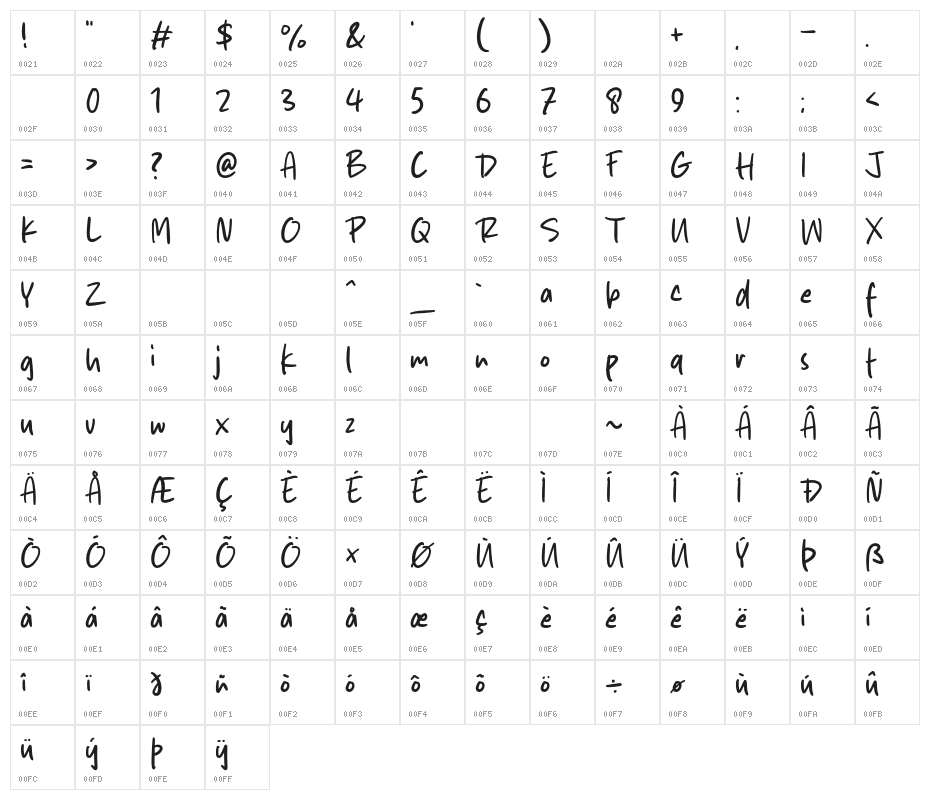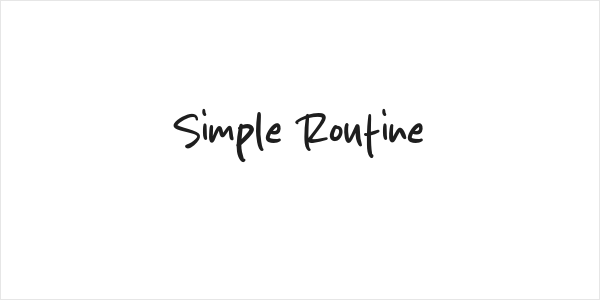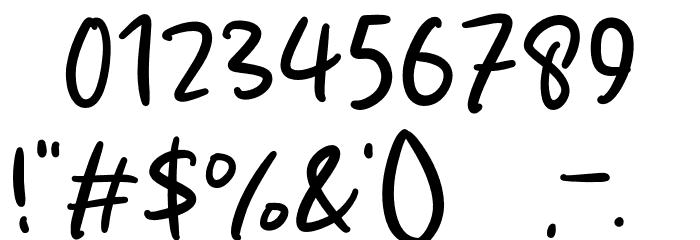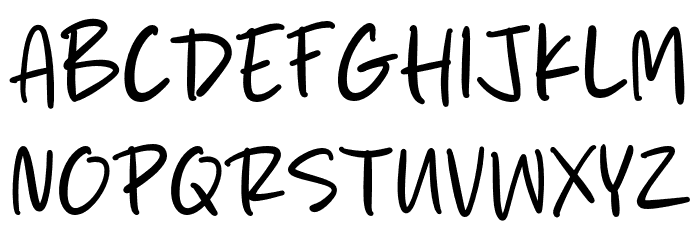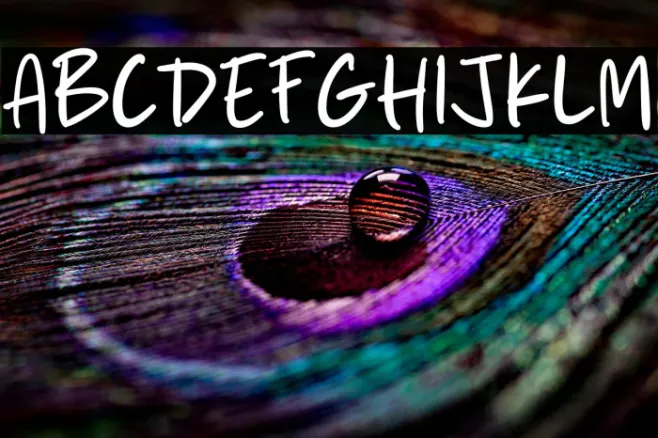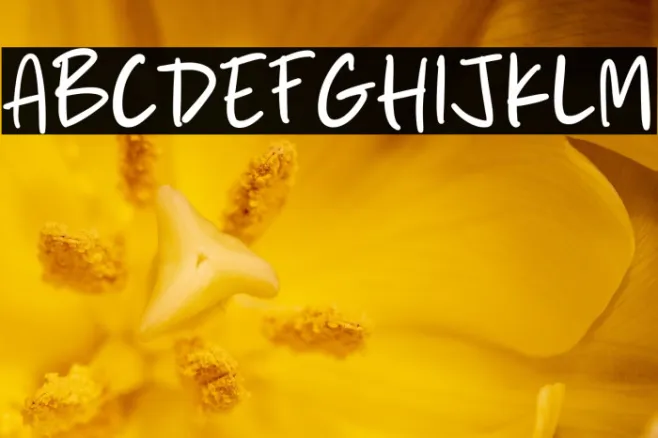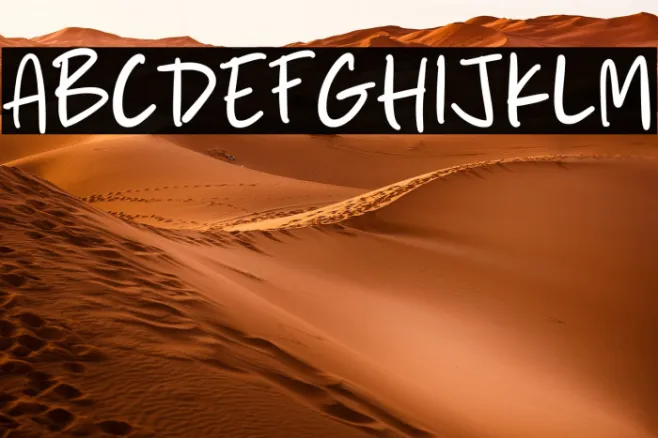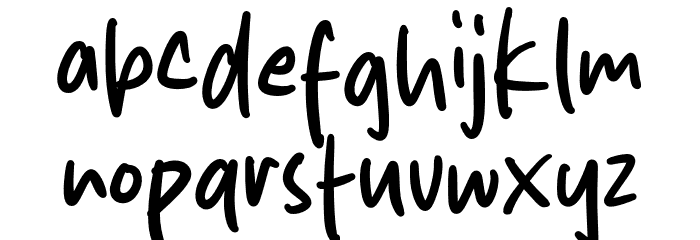
Simple Routine Font
Simple Routine Description
A casual, handwritten font with a playful and informal style, featuring rounded edges and a natural flow.
| Use Case | Logos, Headlines, Informal text |
| Proposed Projects | Greeting cards, invitations, personal branding. |